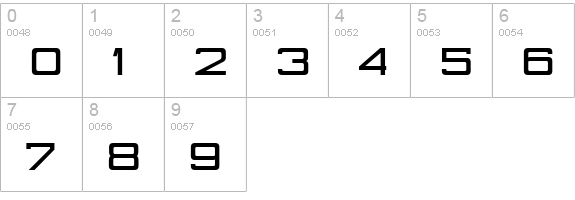
NesobriteExBl-Regular Font Details
NesobriteExBl-Regular is the standard, neutral variant in the NesobriteExBl typeface family \xE2\x80\x94 well suited to general body text, paragraphs, and standard typographic work.
NesobriteExBl-Regular is a sleek and modern typeface that exudes elegance and sophistication. With its exquisite letterforms and clean lines, this font is perfect for adding a touch of class to any design project. The bold weight of NesobriteExBl-Regular makes it ideal for headlines, titles, and branding materials, while its versatility allows for easy readability in body text as well. Best of all, NesobriteExBl-Regular is completely free to download! You can get your hands on this stunning font at FontsMarket.com, where you'll find a wide selection of high-quality fonts for all your creative needs. Don't miss out on the opportunity to enhance your designs with the timeless charm of NesobriteExBl-Regular. Download it today and elevate your typography game to new heights.